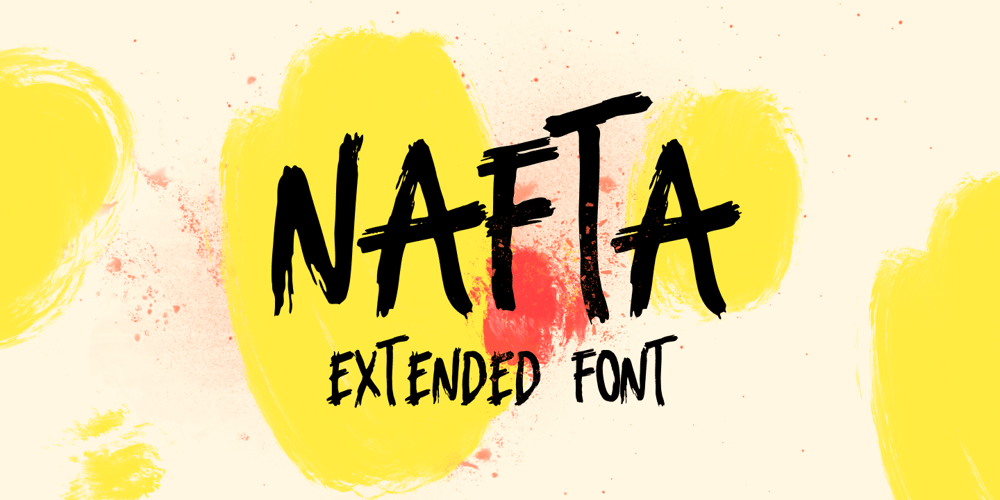
Nafta Brush Font
Nafta Brush Font font
Nafta Brush Font Font Family was designed by Krisjanis Mezulis and published by WildOnes. Nafta Brush Font contains 1 styles and family package options. Nafta Extended Font is the Pro version of the free Nafta Font. It features a huge language support, from all European languages to even Cyrillic and Vietnamese. The Font features handwritten marker shapes with natural edges. Nafta Extended is a brush font which you can use and enjoy again and again, for anything from promotional material and handwritten quotes, to product packaging, merchandise, and branding projects. Made by Krisjanis Mezulis ar Wildones Type Foundry.